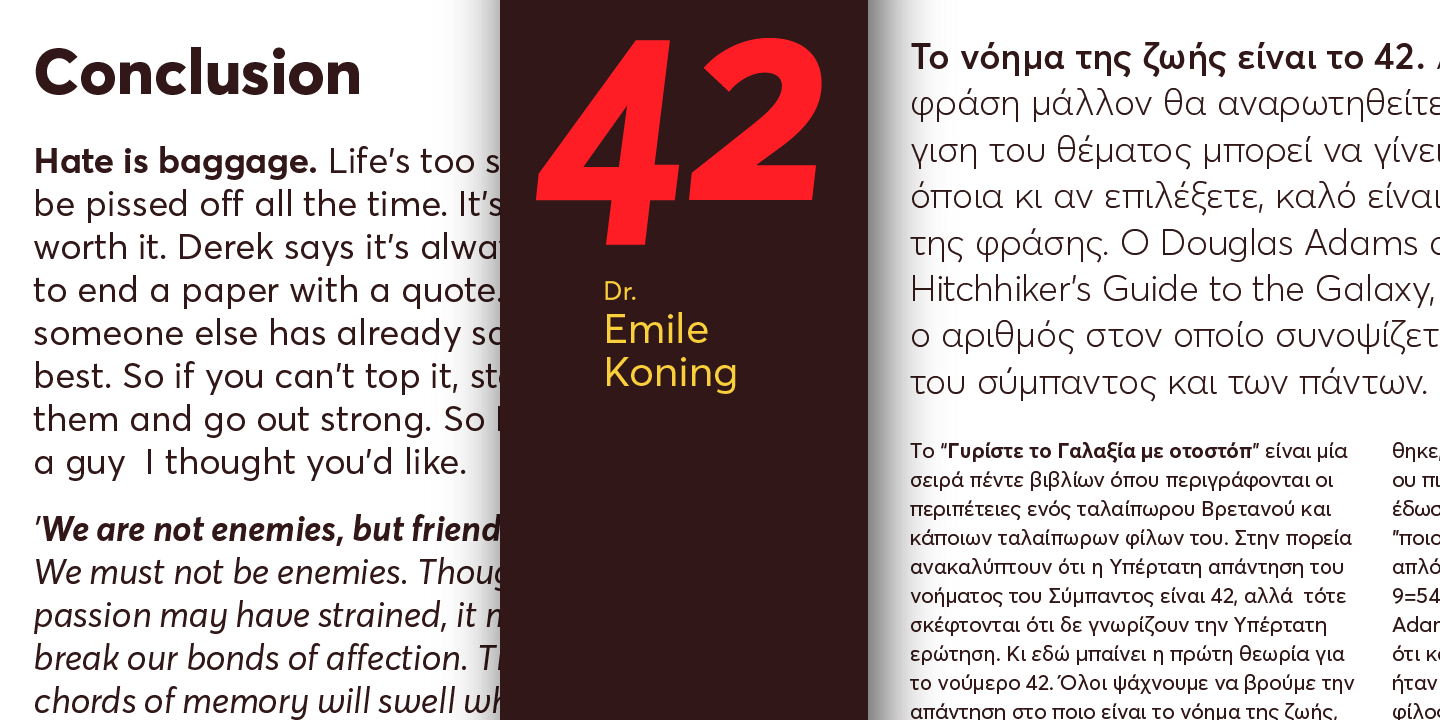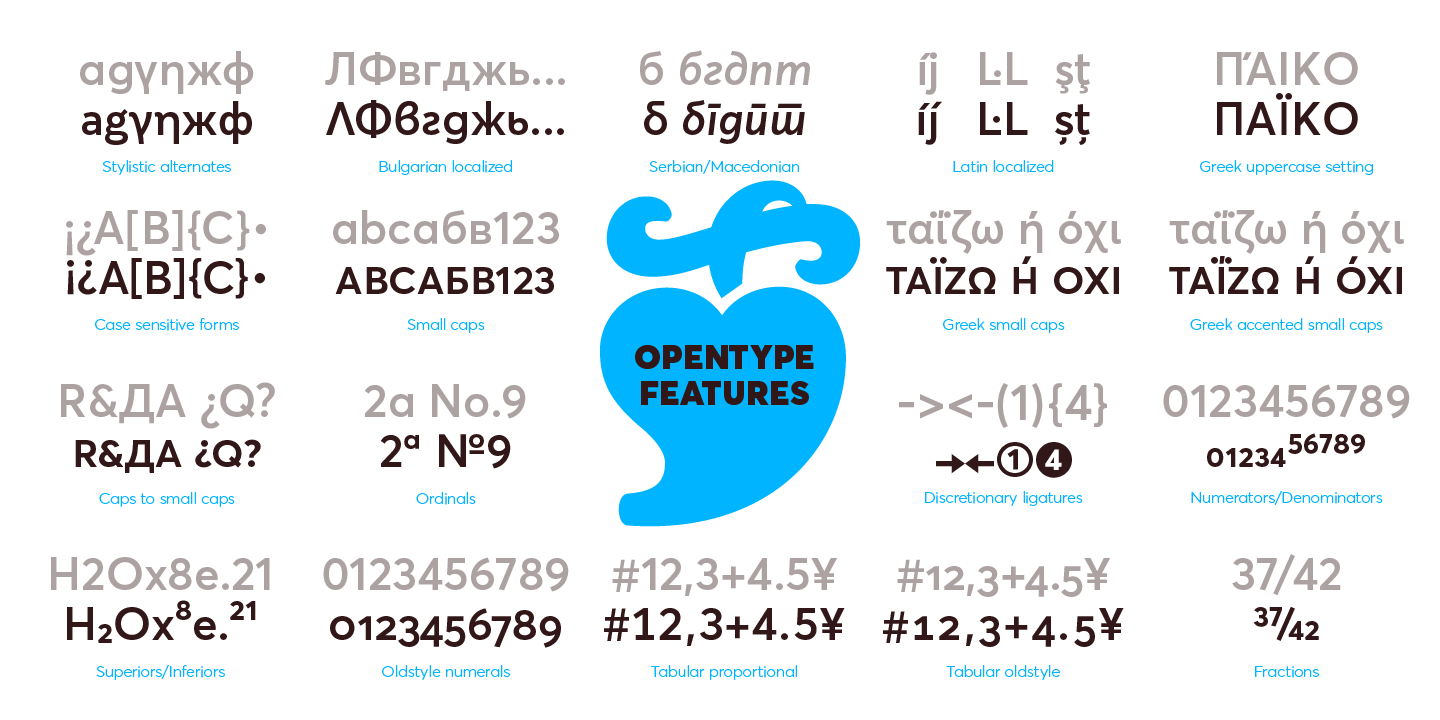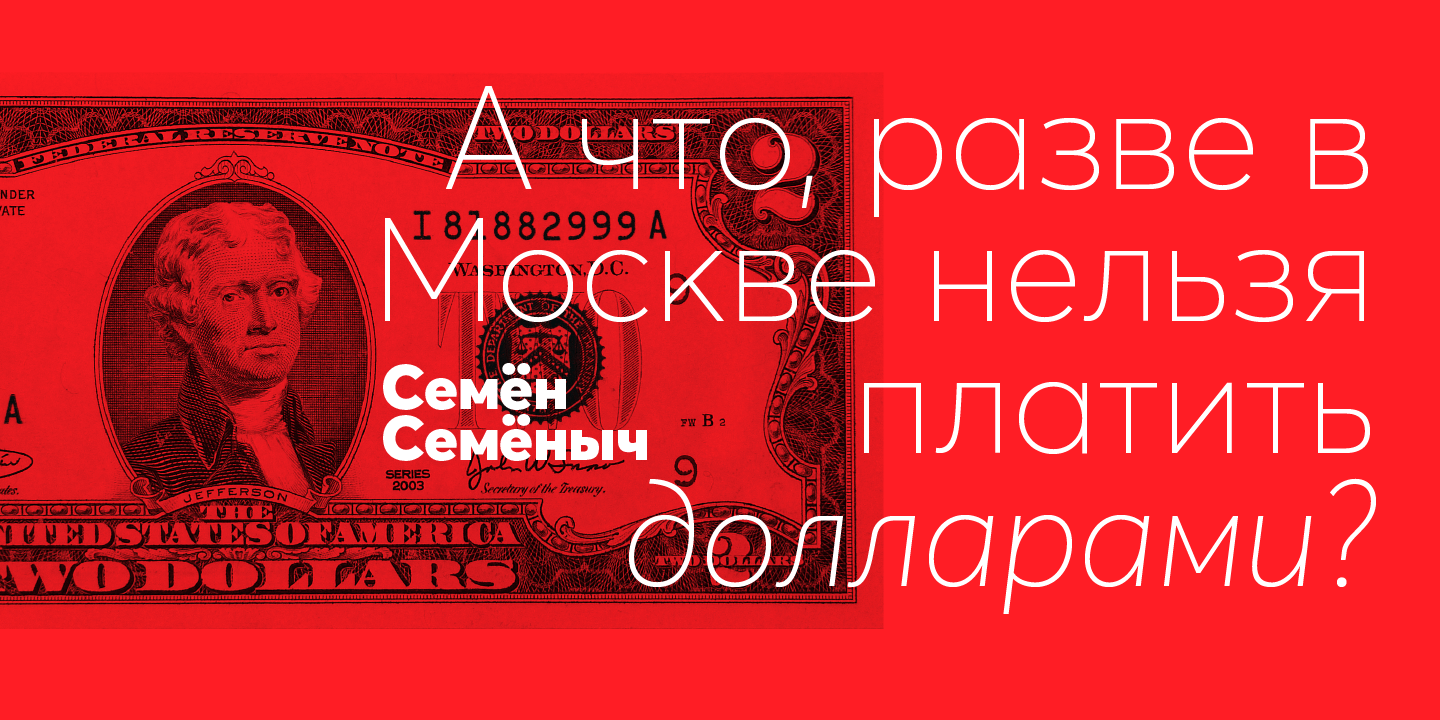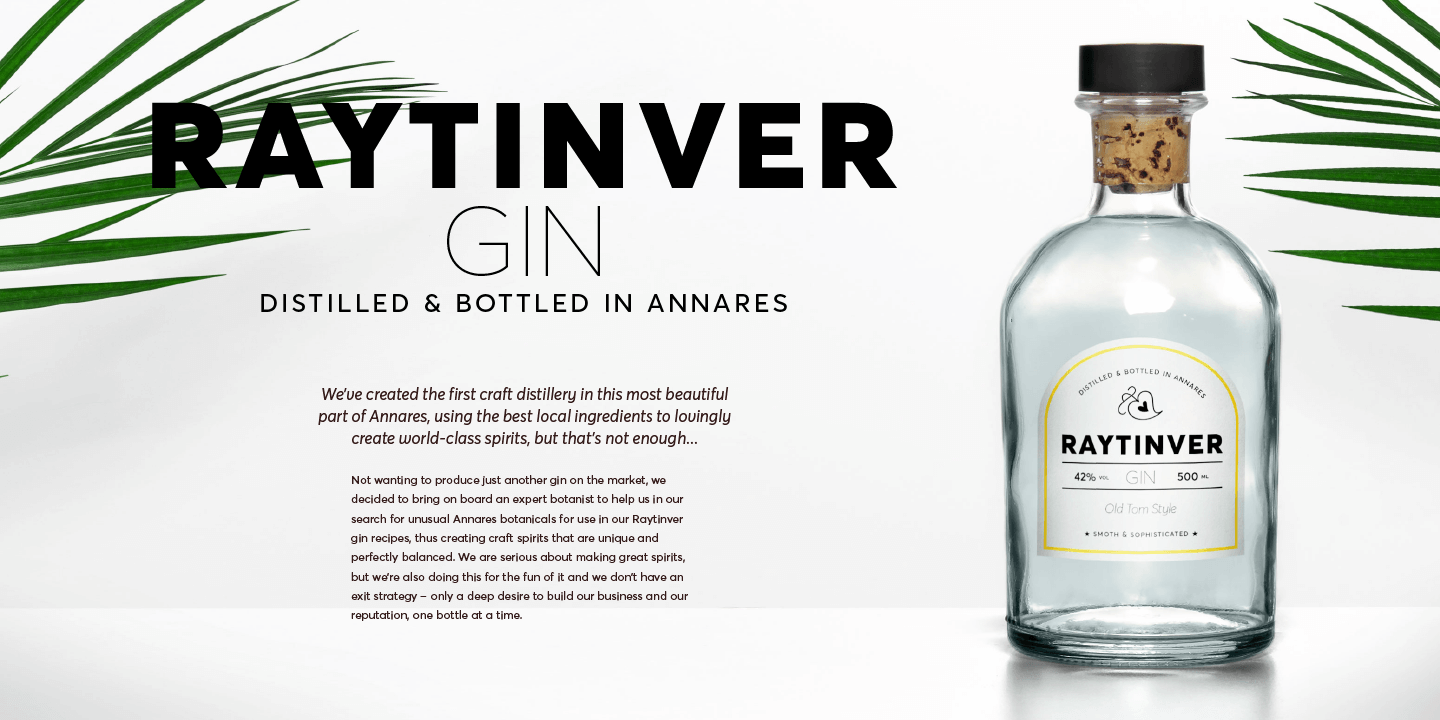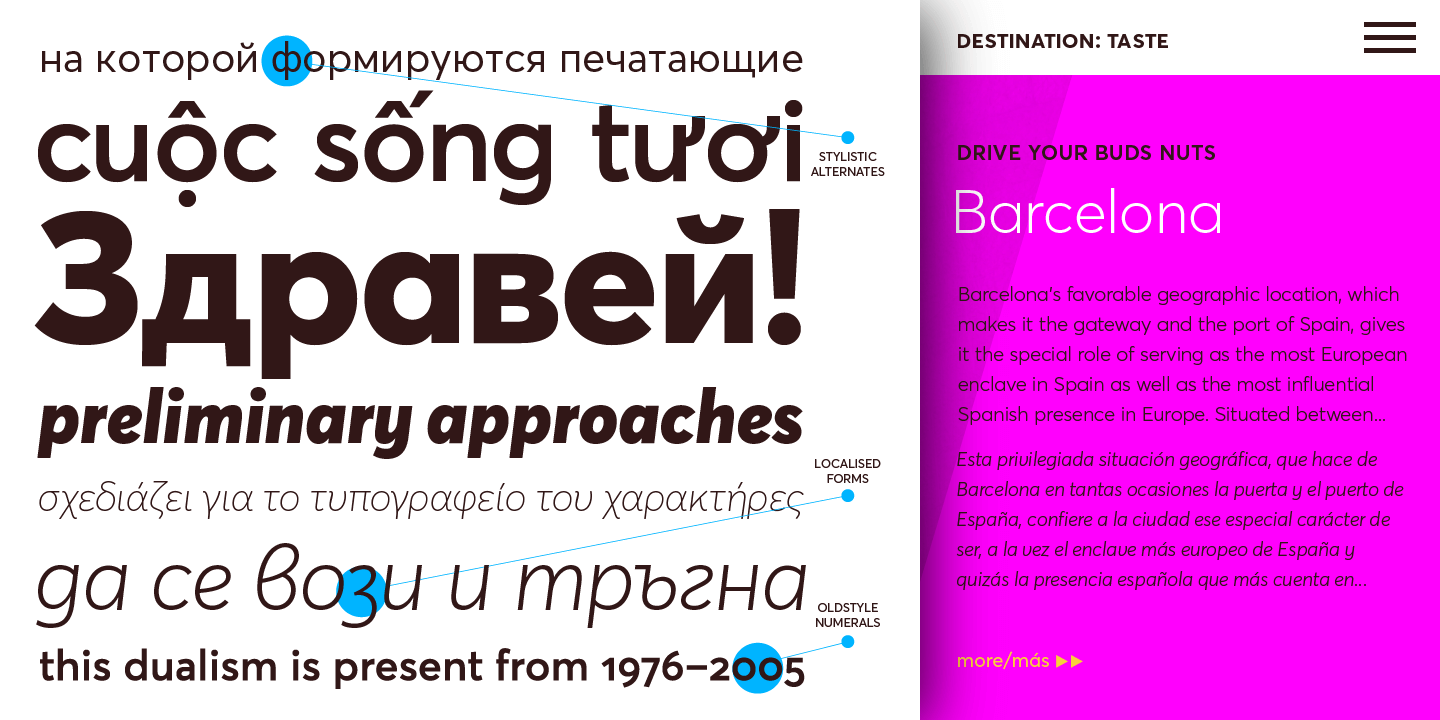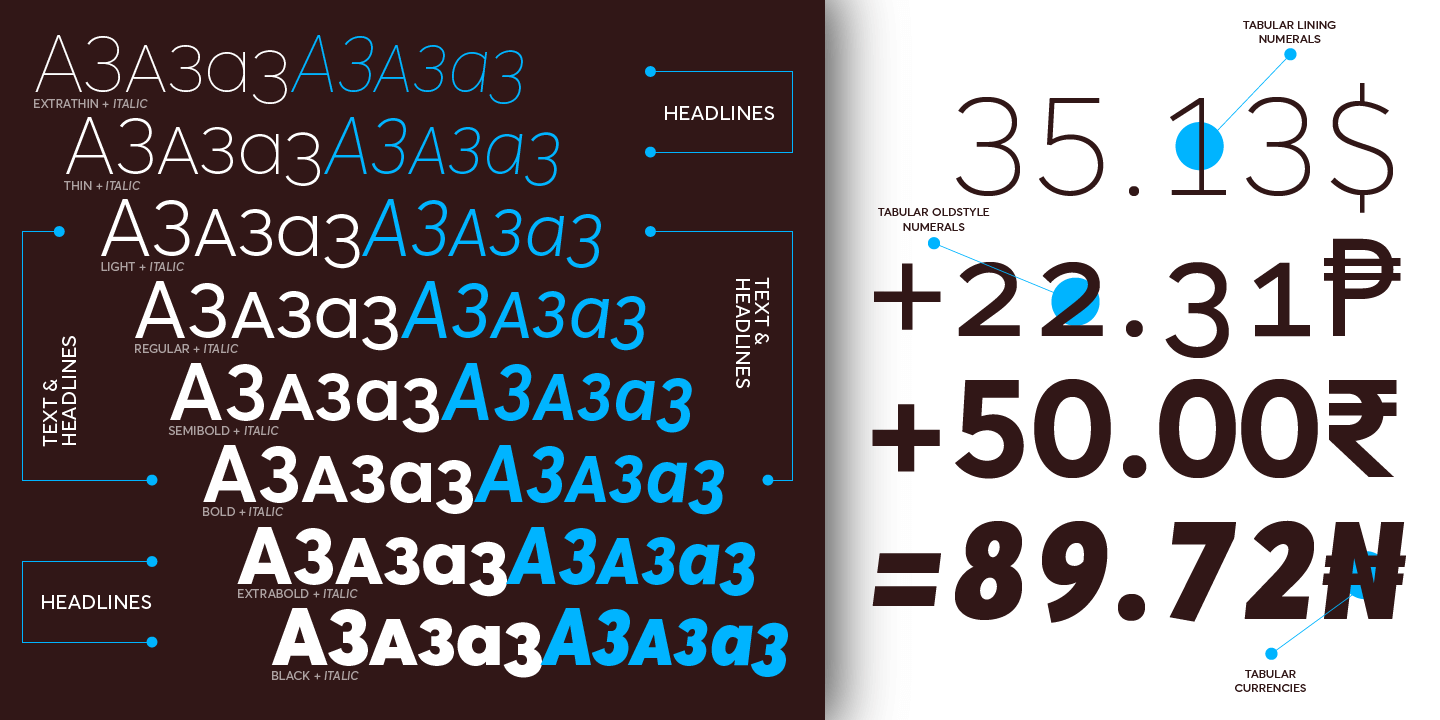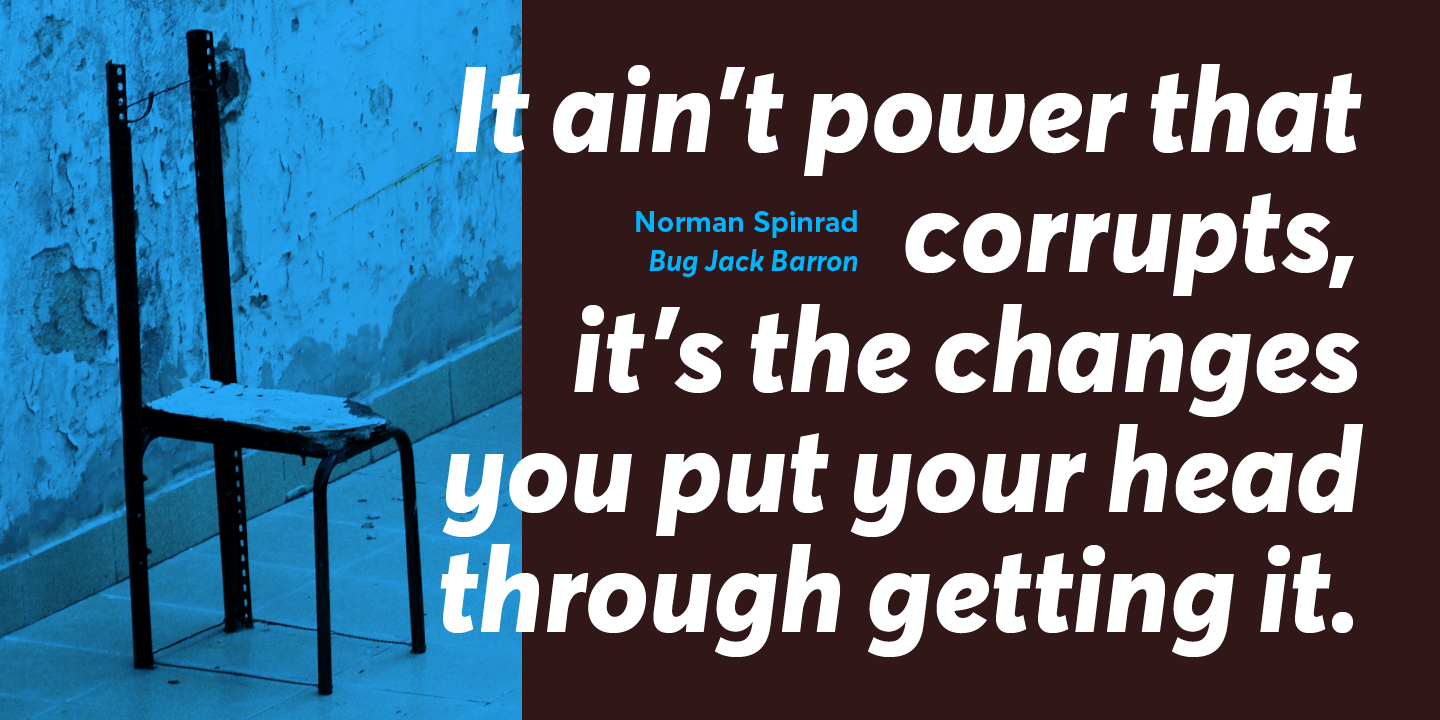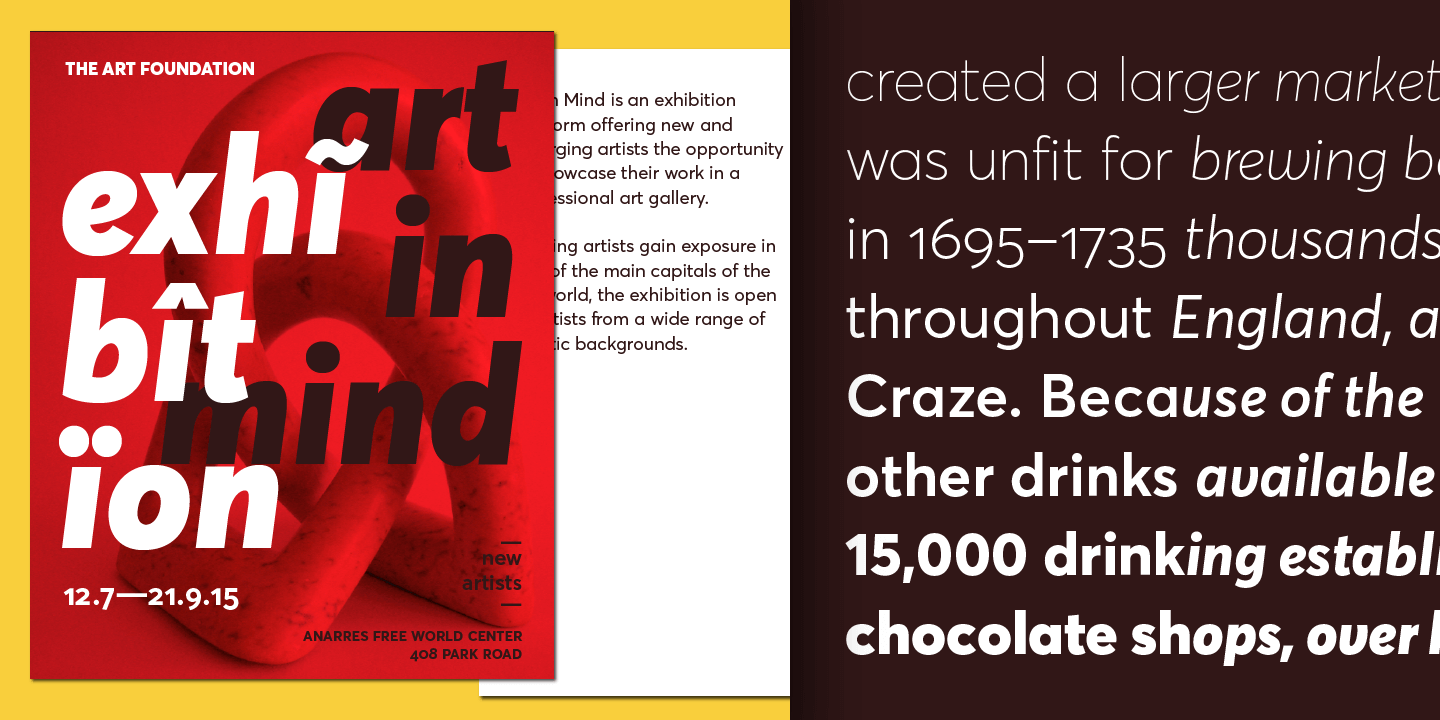
Averta PE
About Averta PE
Bringing together features from early European grotesques and American gothics, Kostas Bartokas' Averta (Greek: ‘αβέρτα’ to act or speak openly, bluntly or without moderation, without hiding) is a new geometric…